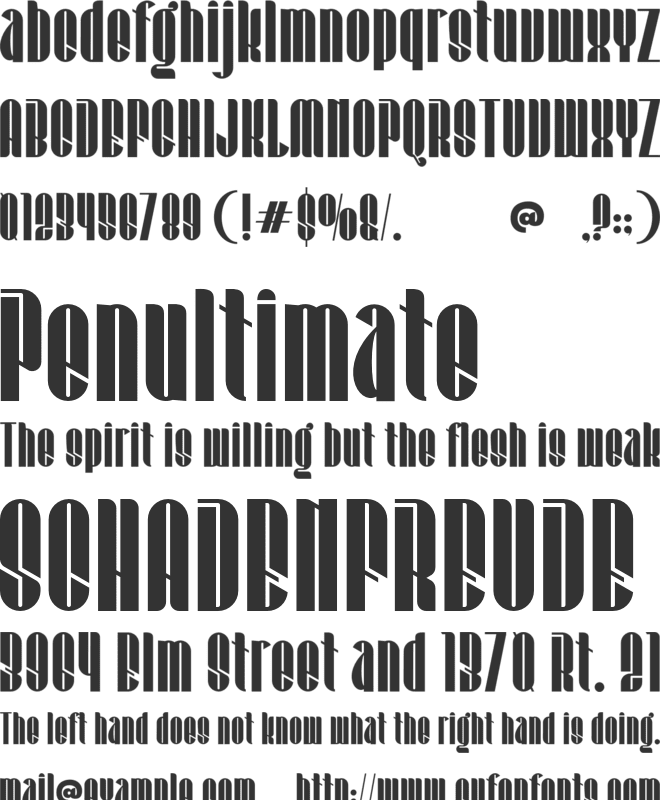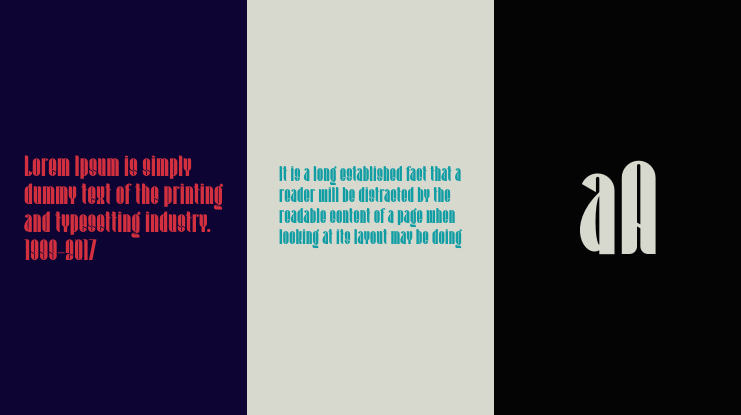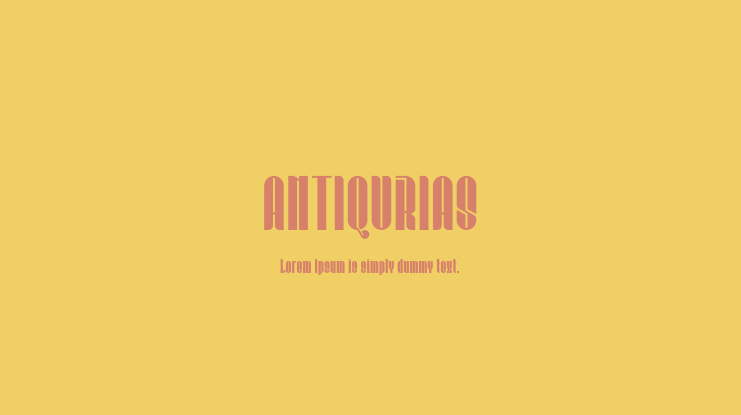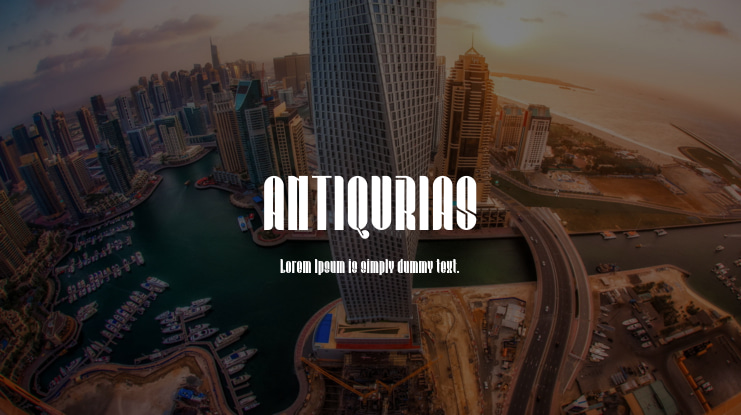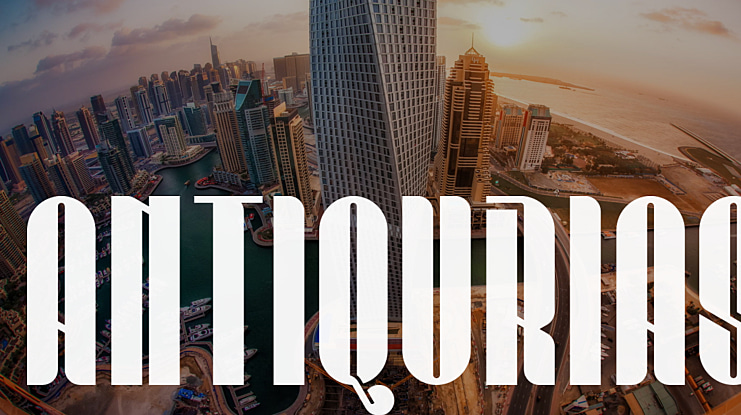
ANTIQURIAS Font
**ANTIQURIAS Font** - Modern Font is a bold and authentic display font. The font is suitable for any branding project like logo, t-shirt printing, esport, and many more. outstanding in a wide range of contexts.
* Uppercase
* Lowercase